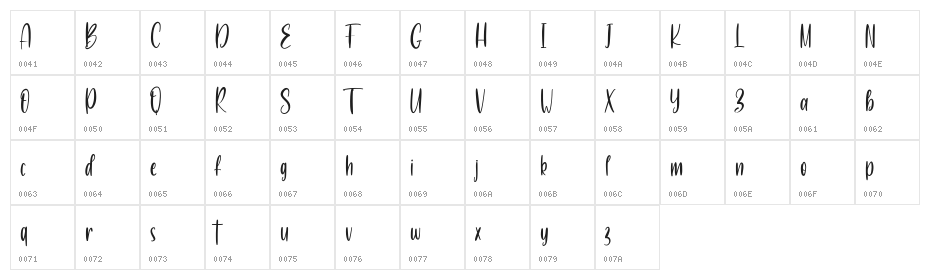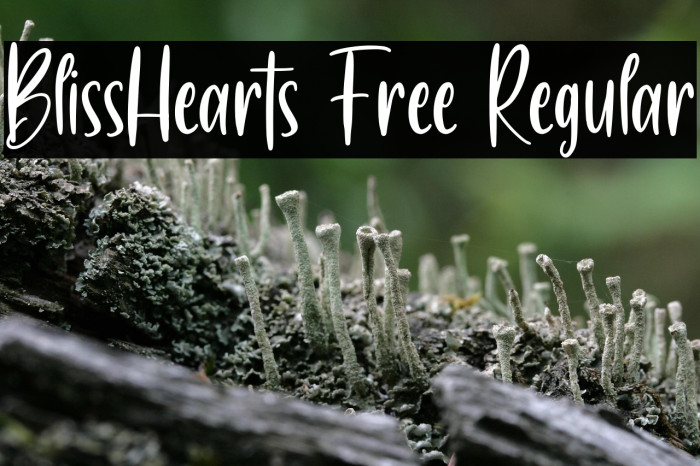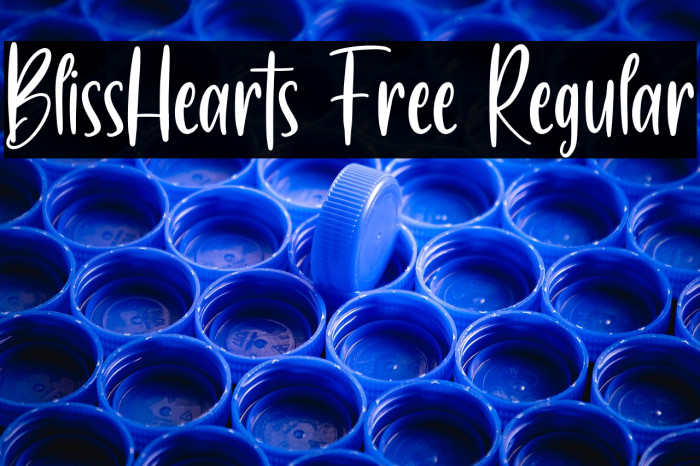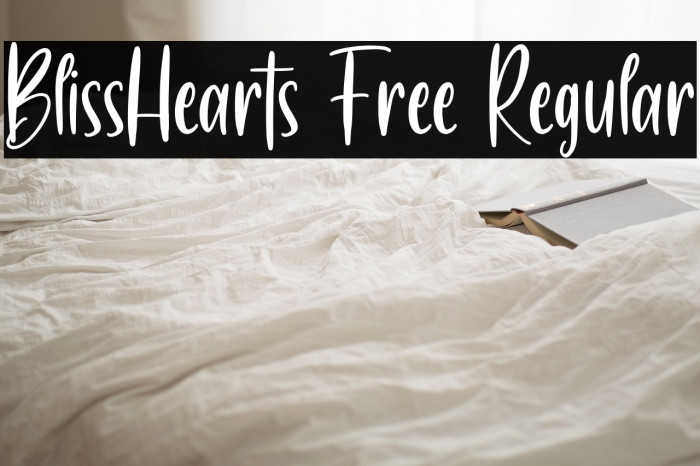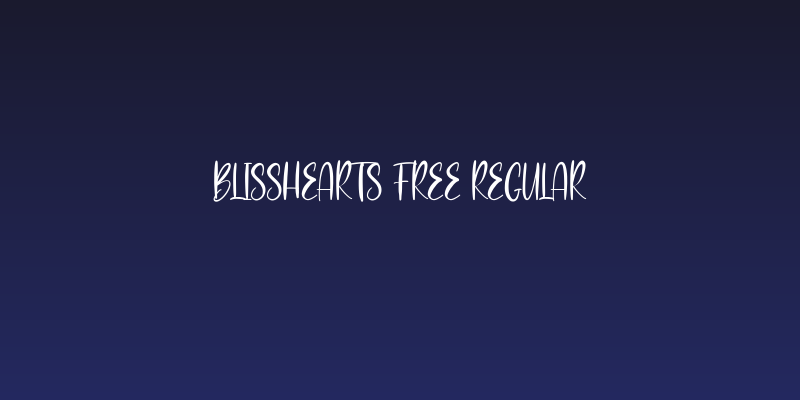
BlissHearts Free Regular Font
BlissHearts Free Regular Description
This font features a playful and whimsical style with a handwritten appearance. The letters are characterized by their flowing, cursive-like strokes, which give them a lively and dynamic feel. The uppercase letters are bold and slightly elongated, while the lowercase letters maintain a consistent flow with rounded edges. The numbers and special characters are designed to match the overall aesthetic, ensuring a cohesive look across all text. The font's unique style makes it suitable for creative and informal projects, adding a touch of personality and charm.